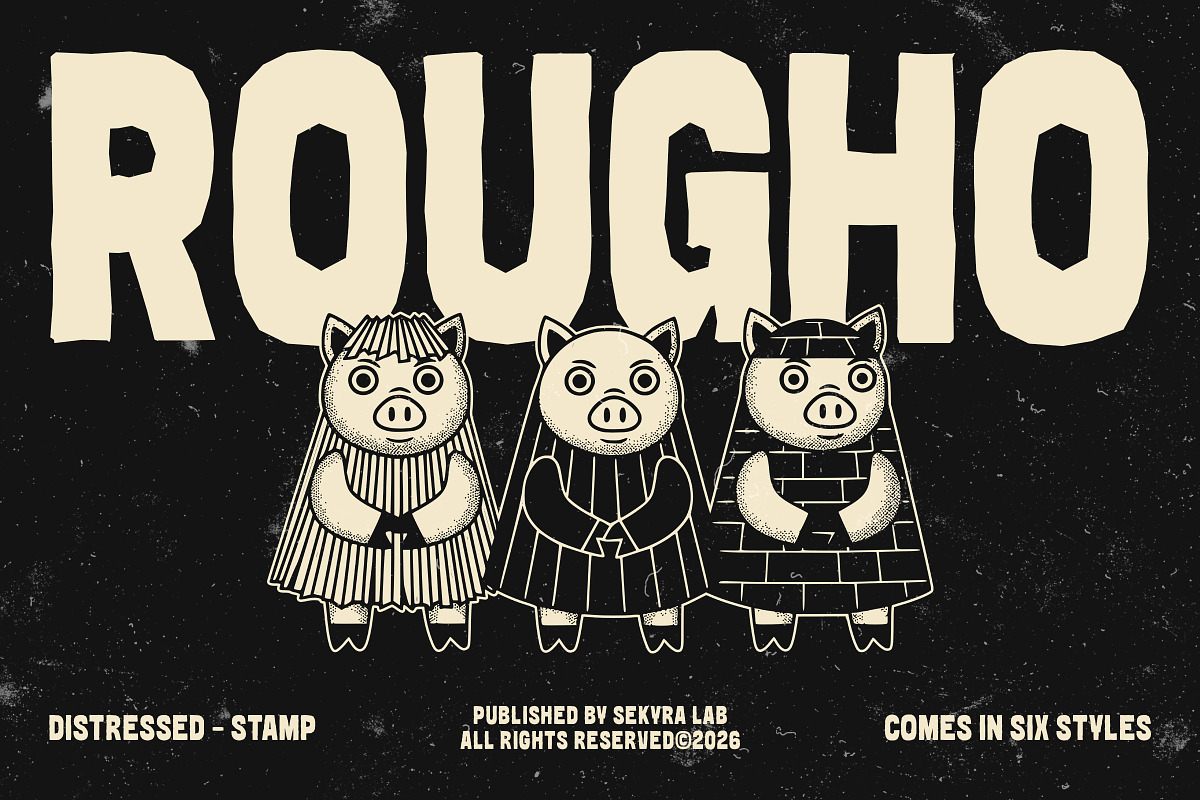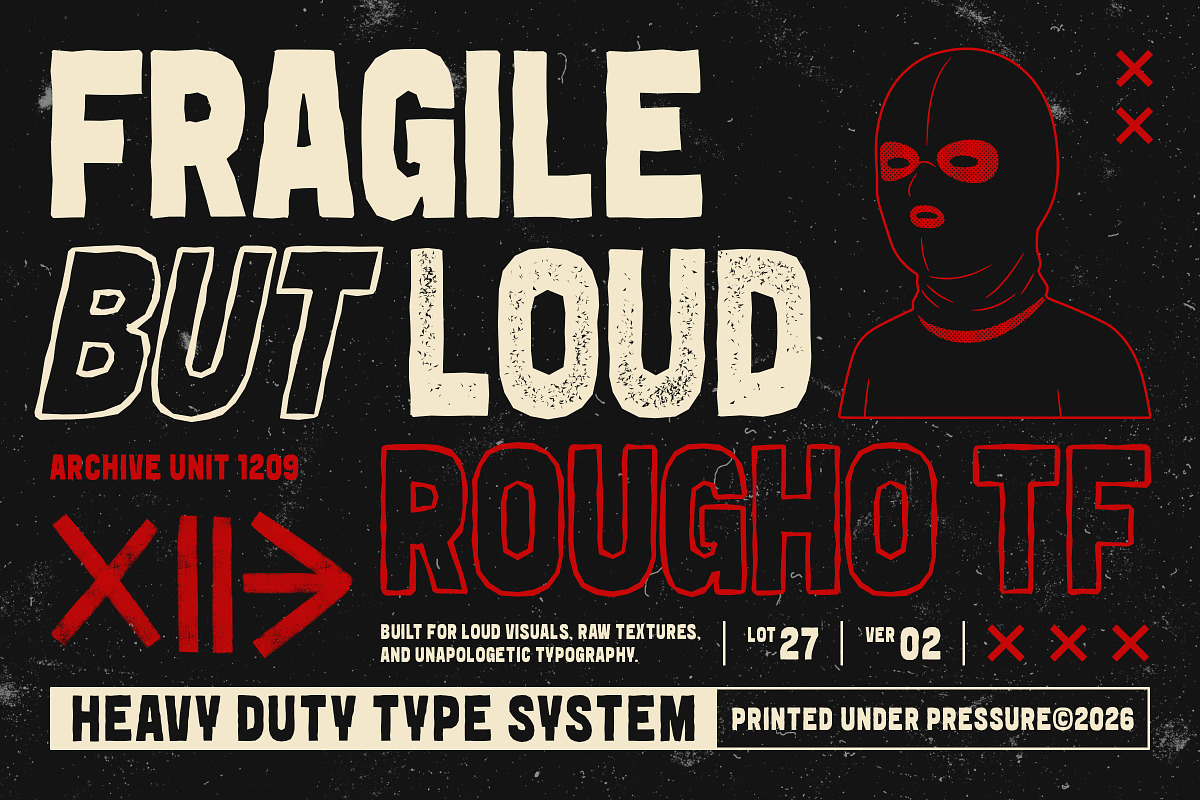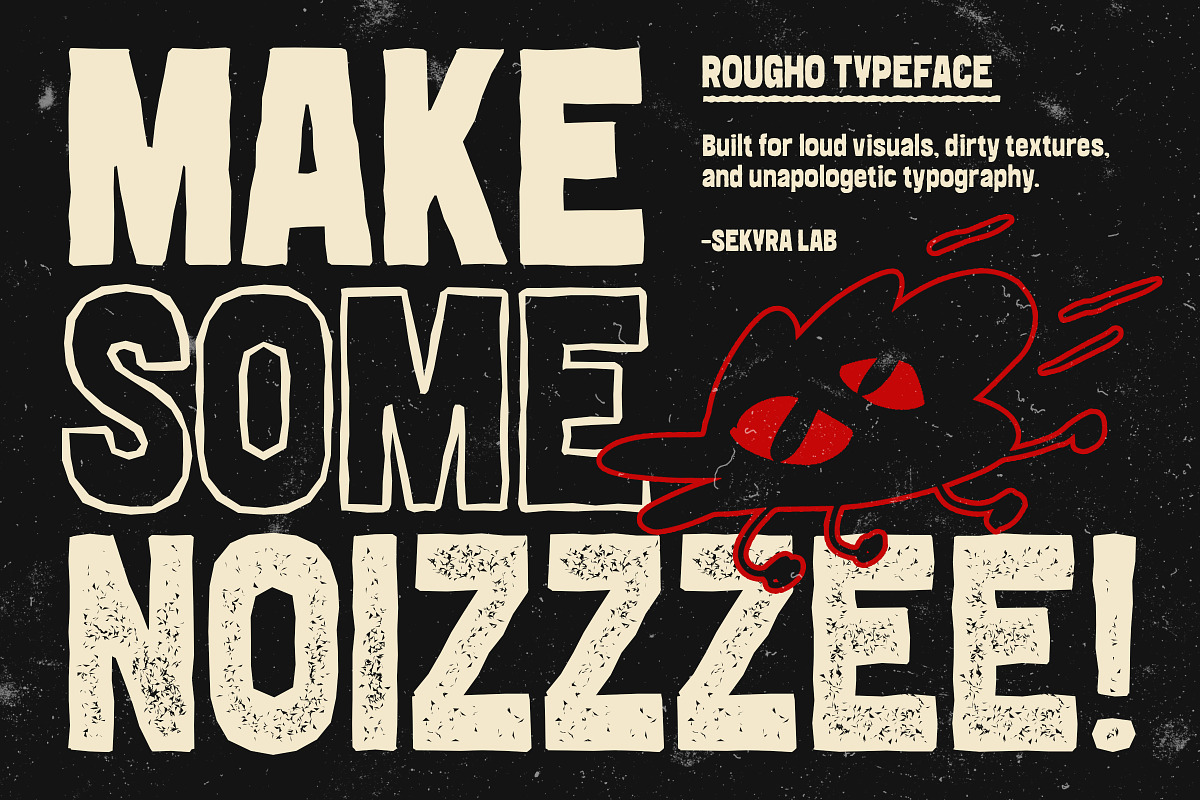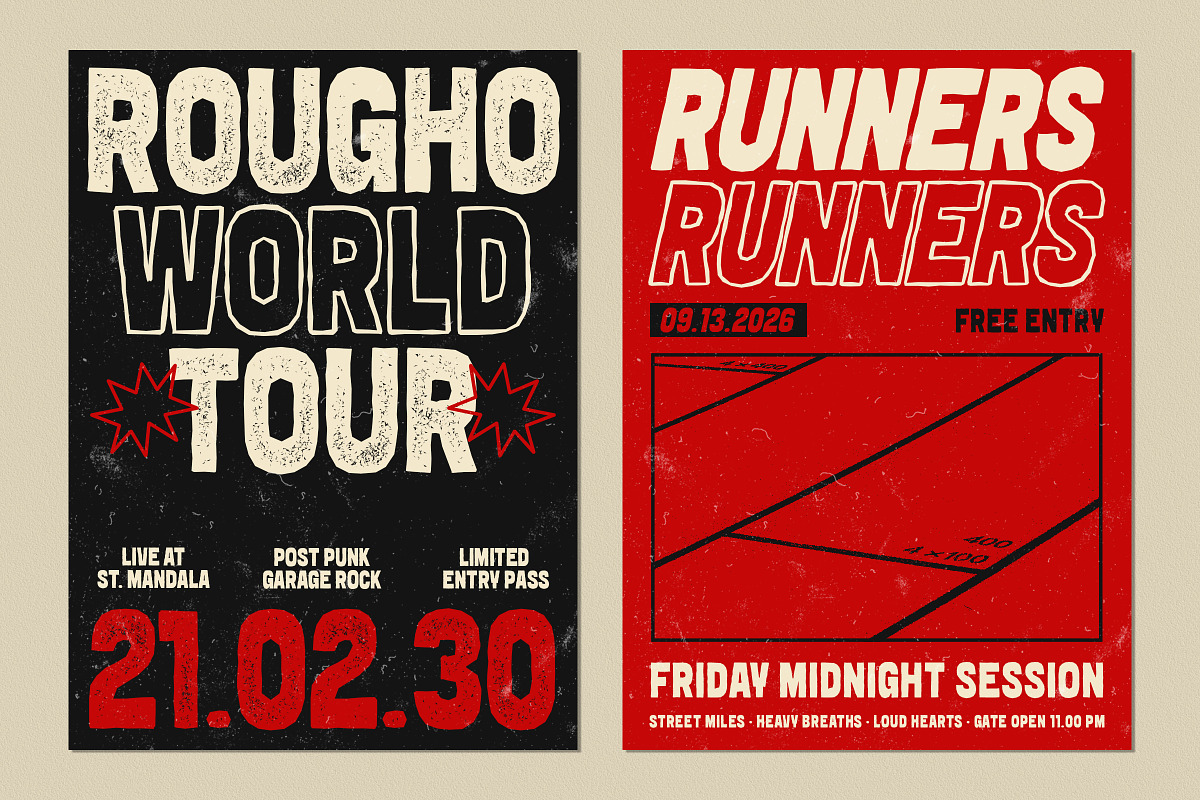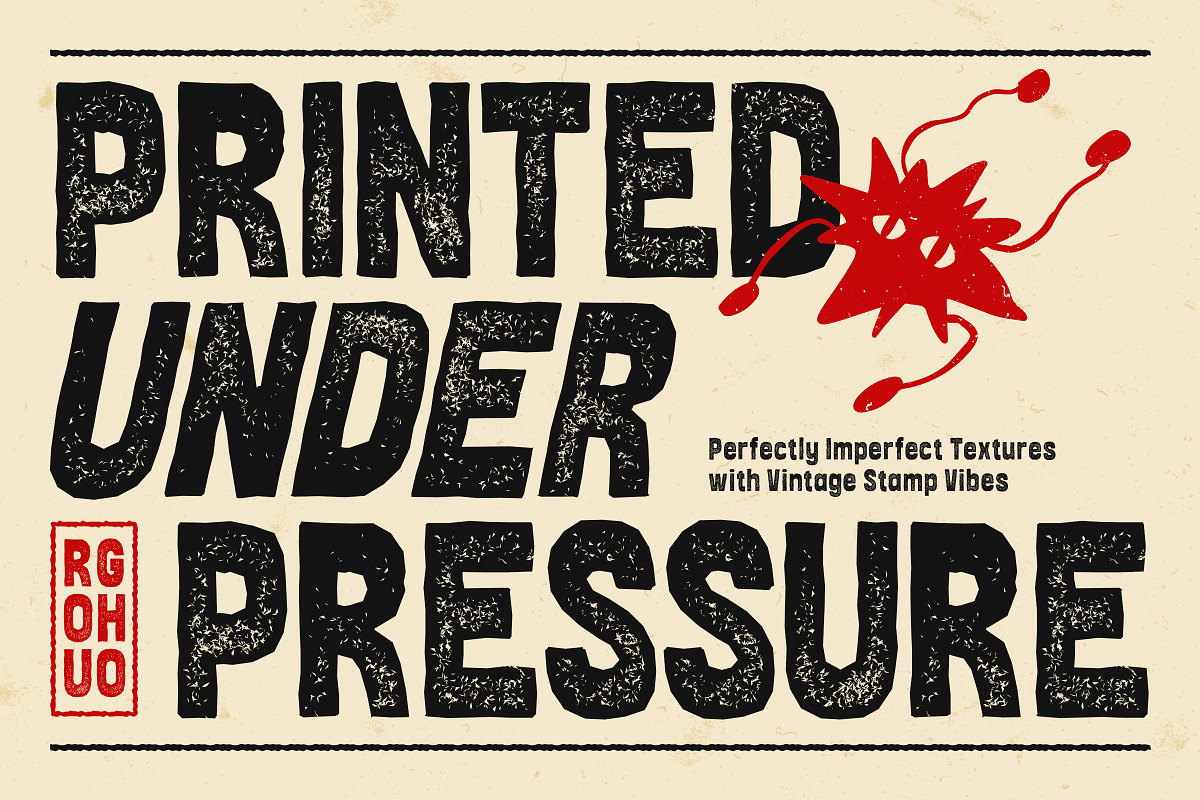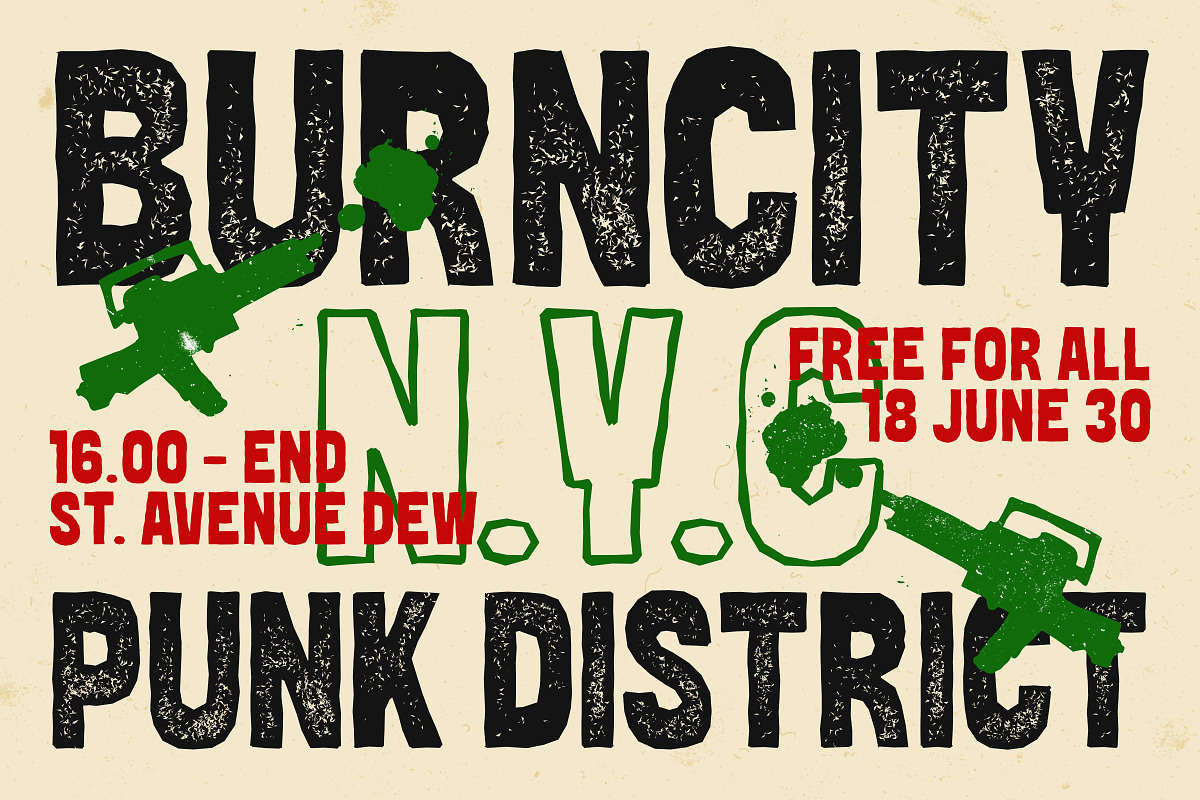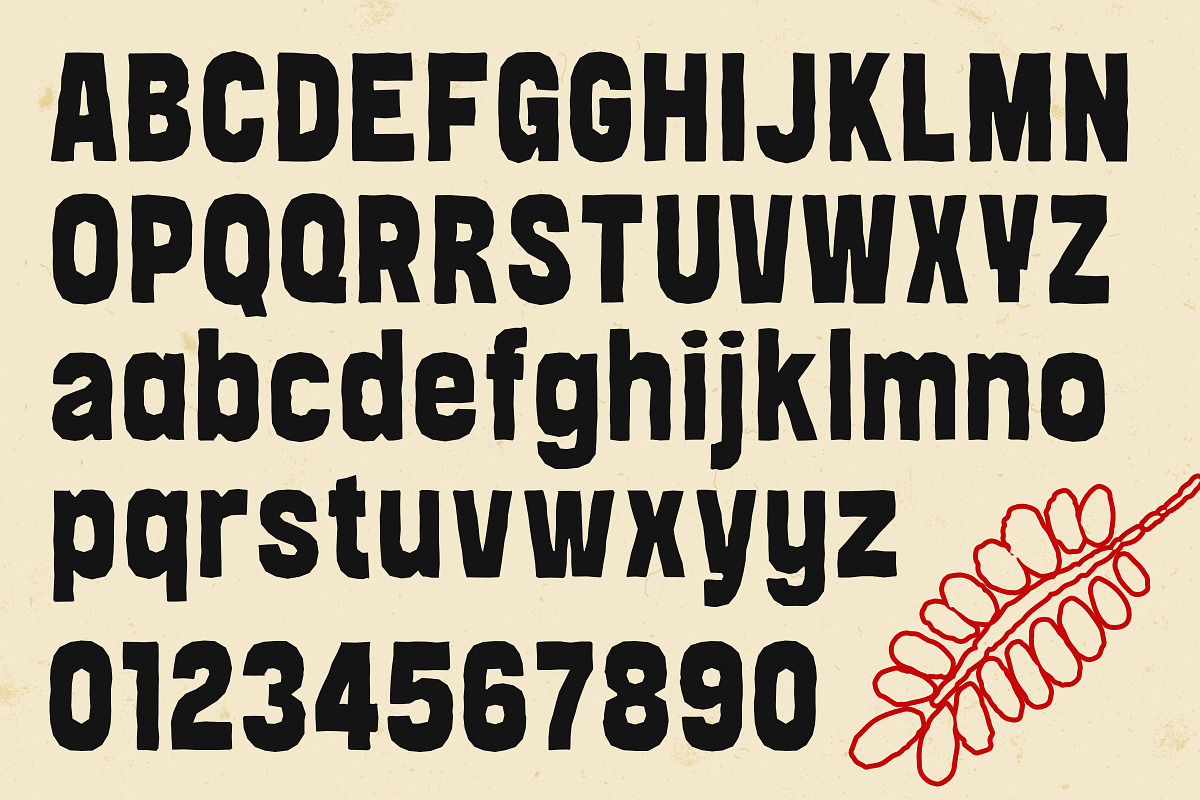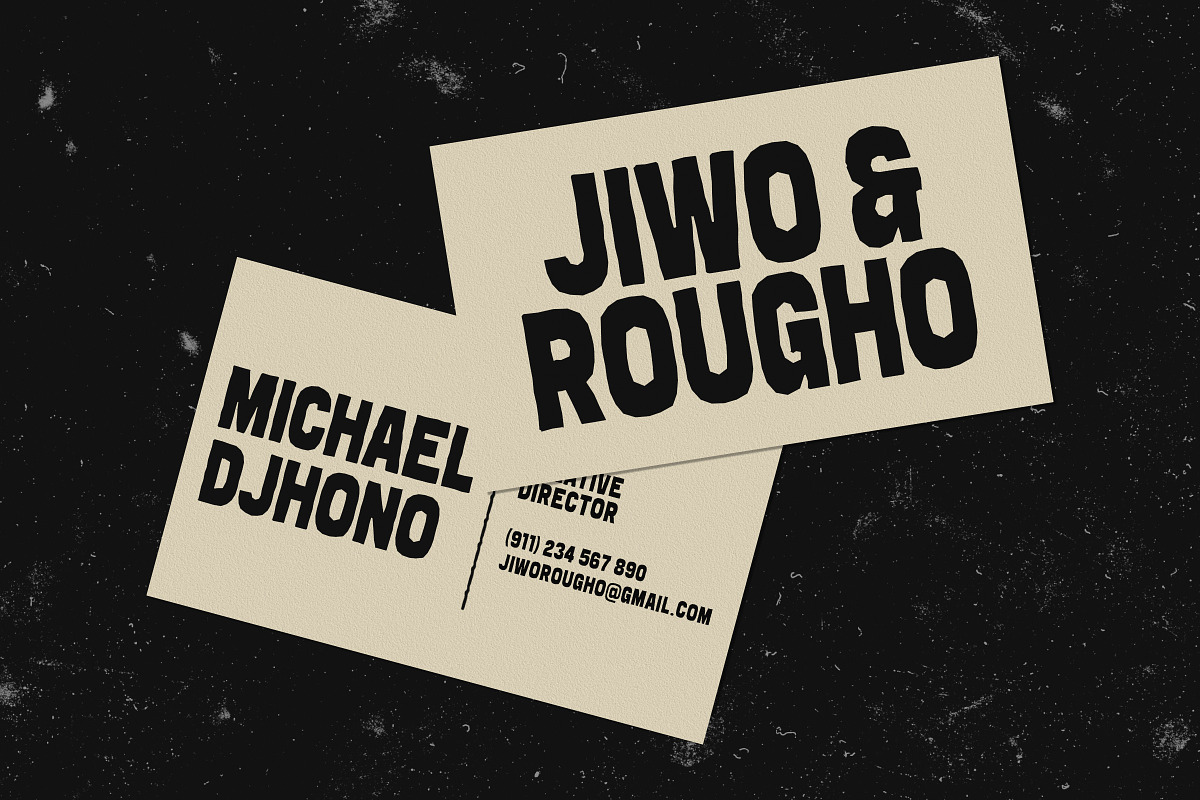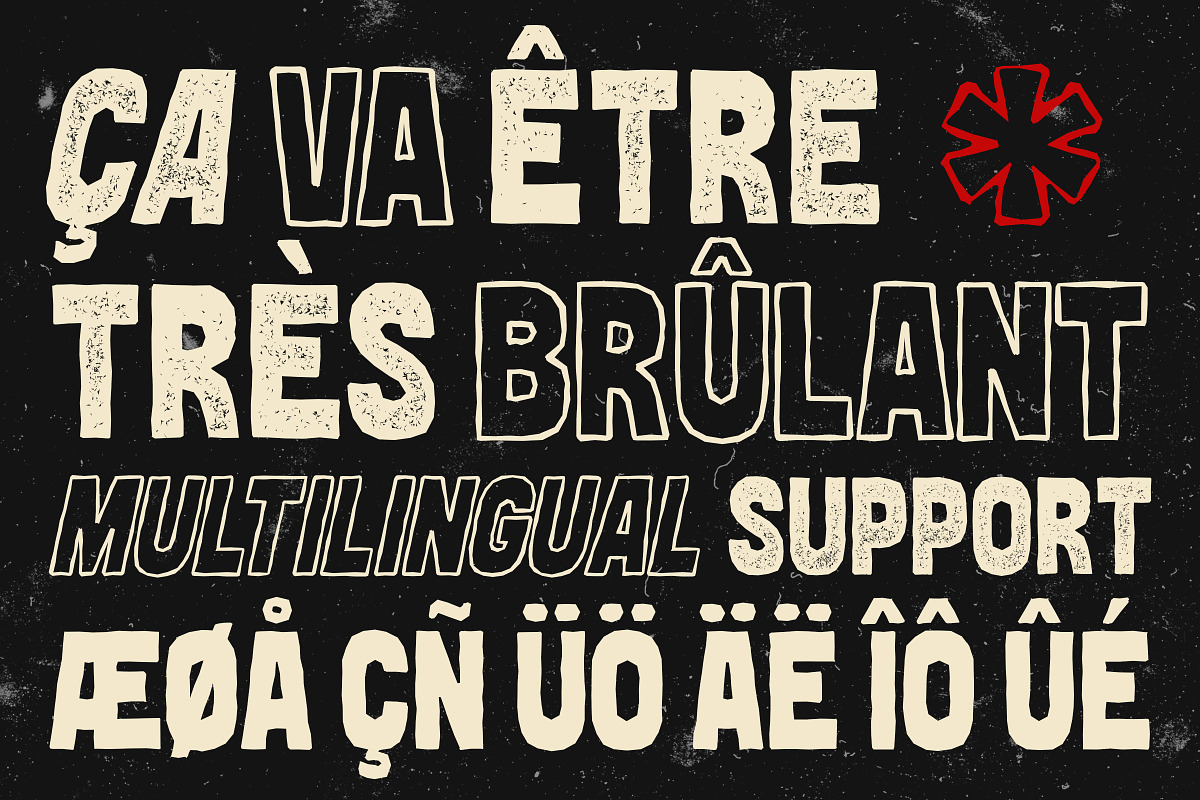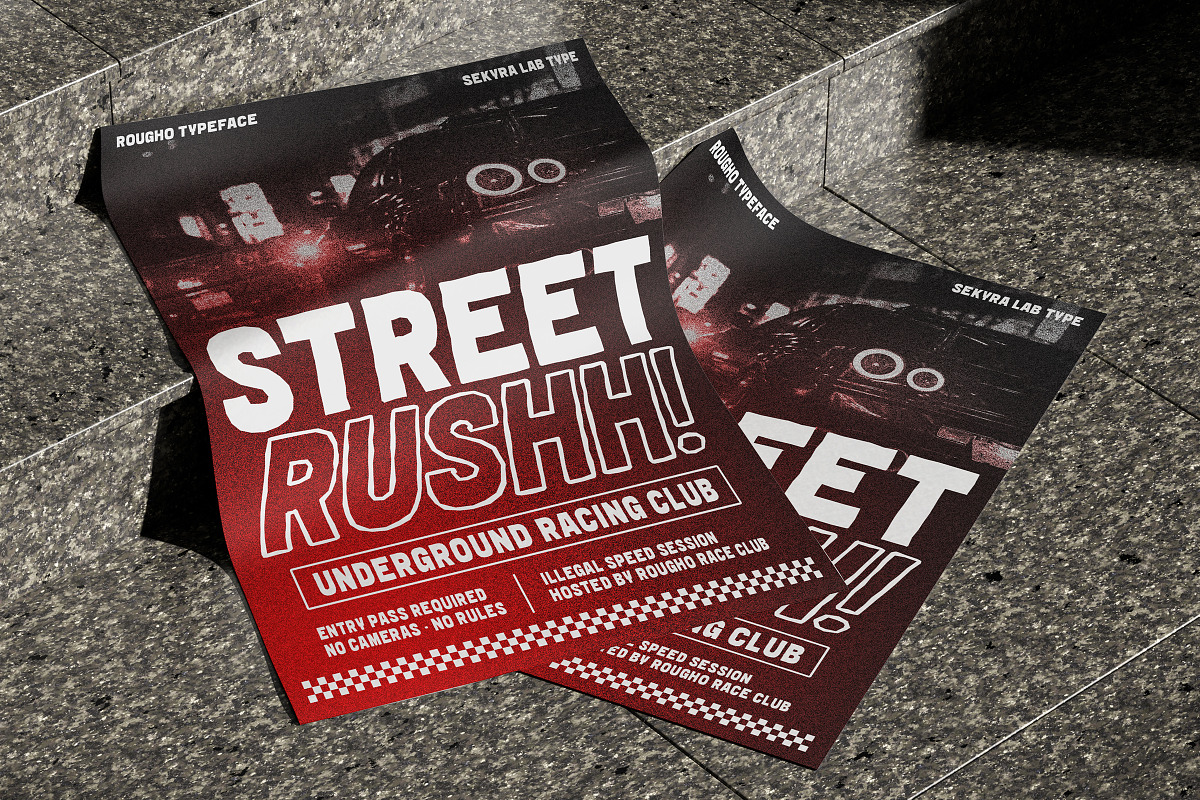
Rougho – Distressed Stamp Display
Rougho is a bold distressed display font family inspired by raw street typography, vintage print textures, underground posters, and imperfect handmade lettering. Built with rough edges and gritty stamp details, this typeface delivers loud visual impact with an authentic worn aesthetic.
Designed for expressive layouts and attention-grabbing headlines, Rougho combines rugged character shapes with textured finishes that feel bold, chaotic, and unapologetically raw.
The family includes 6 unique styles, giving you flexibility for layered typography, experimental layouts, and high-impact compositions.
Perfect for posters, album covers, branding, editorial headlines, packaging, skate culture, music visuals, retro graphics, and rebellious creative projects.
Features: • 6 Styles: Regular, Stamp, Outline, Oblique, Stamp-Oblique, Outline-Oblique • Uppercase & Lowercase • Numbers & Punctuation • Multilingual Support • Rough distressed textures • Vintage stamp aesthetic • Strong display character • Formats: OTF, TTF, WOFF, WOFF2